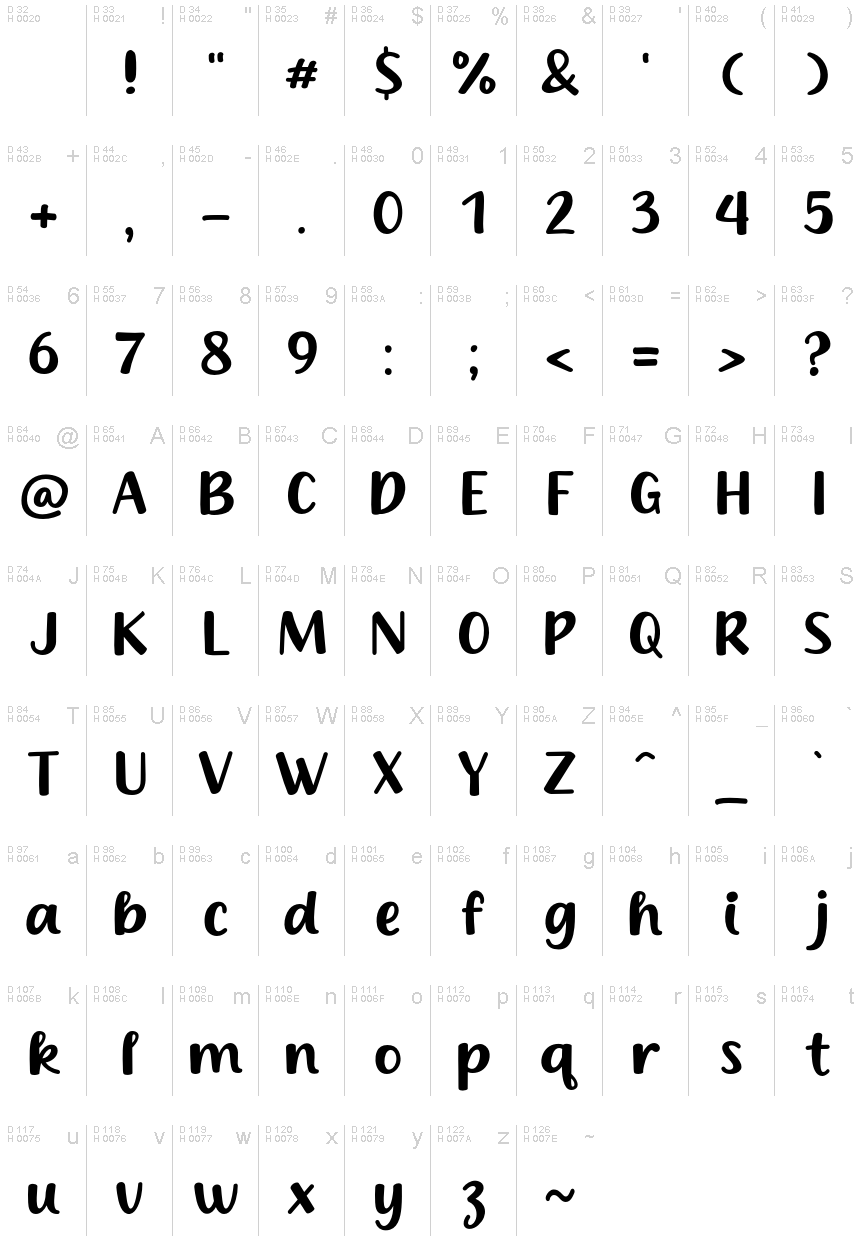
Milk Cream
Milk Cream font by MJType is a bold free display font with playful and cartoonish letterforms. This bright nostalgic typeface achieves its whimsical tone through rounded shapes, casual constructions, and informal structures. Its friendly visual language makes for an easygoing yet creative type.
Use Milk Cream for cartoons, posters, video games, headlines, social media stories and posts, invitations, branding projects, movie titles, or book covers.